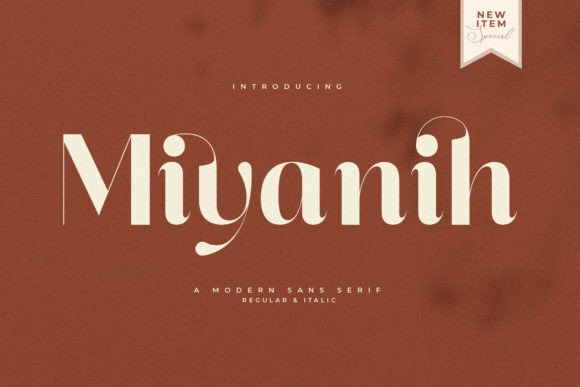
Introducing Miyanih, a font that will captivate your audience, radiating elegance and luxury like never before! This modern and stylish serif font, designed meticulously by Storytype Studio, possesses a distinctive charm that sets it apart from the ordinary. Whether you're crafting an unforgettable logo, designing fashion labels, or creating captivating magazine spreads, Miyanih is your perfect companion.
Miyanih's versatile nature shines in the world of apparel, adding a touch of sophistication to your designs and leaving a lasting impression on your customers. Elevate your quotes and lettering with this exquisite font, allowing your words to dance with grace and charm. The beauty of Miyanih is undeniable, a visual symphony that transforms any project into a masterpiece.
With its carefully crafted curves and striking serifs, Miyanih exudes a timeless allure that will leave your audience spellbound. Its refined elegance adds a touch of class to wedding invitations, enhancing the magic and romance of your special day. This font has the power to transform your creative visions into tangible realities, adding a touch of enchantment to every endeavor.
Embrace the beauty of Miyanih and unlock a world of creative possibilities. Let your imagination soar as you explore the limitless potential of this captivating font. Miyanih is more than just a font; it's an artistic expression that reflects your unique style and vision.